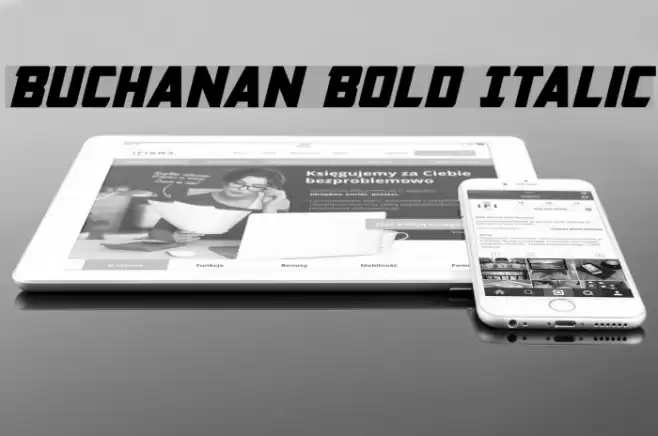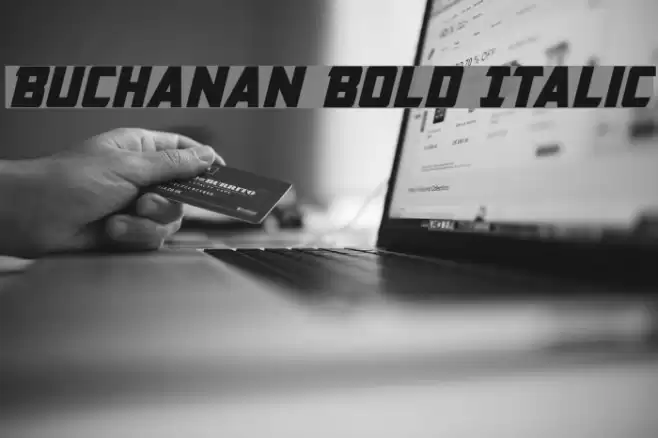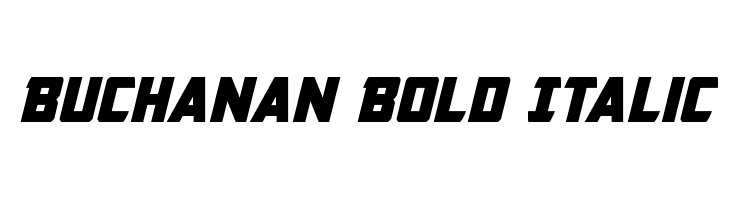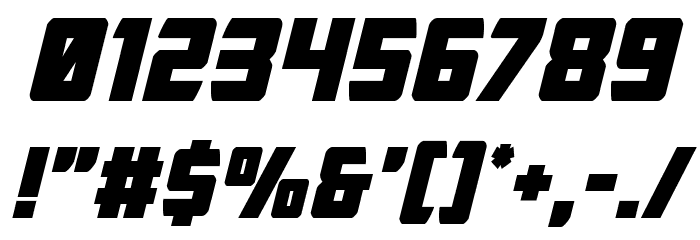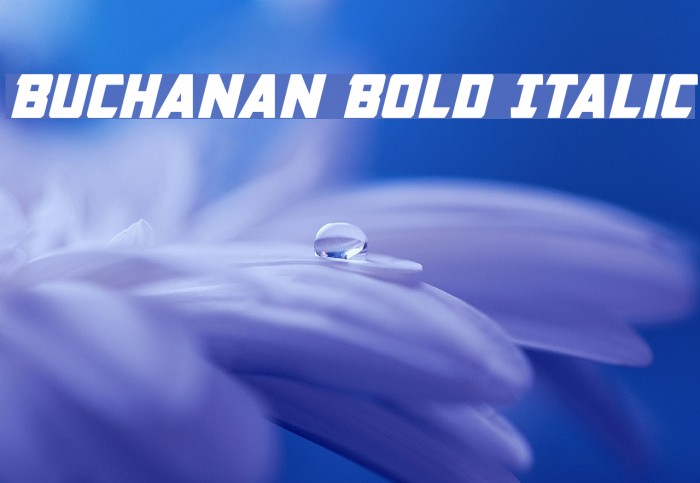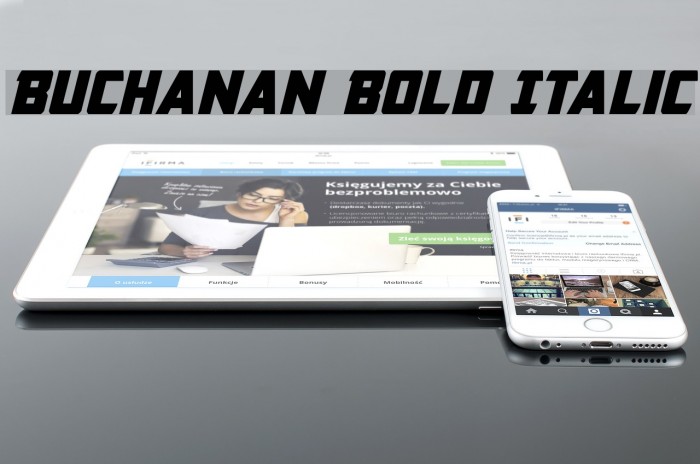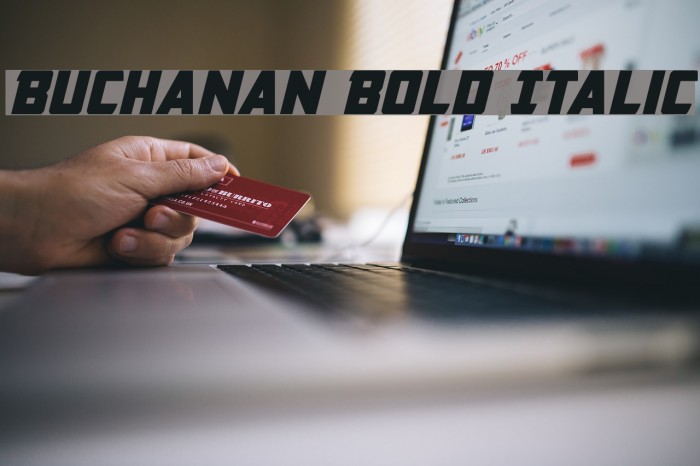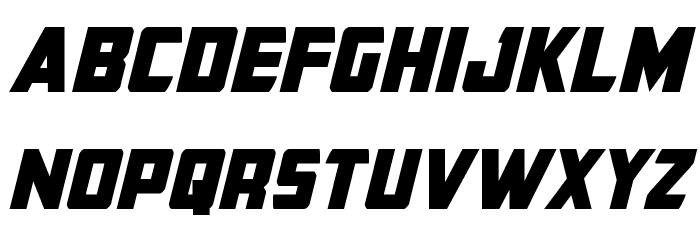
Buchanan Bold Italic Font
Buchanan Bold Italic Description
This font features a bold and italicized style with a strong, impactful presence. The characters are designed with a slight slant, enhancing their dynamic appearance. The strokes are thick and consistent, providing a robust and confident look. The uppercase and lowercase letters maintain a uniform width, contributing to a cohesive and structured feel. The numerals and special characters are crafted to match the boldness of the alphabet, ensuring a harmonious overall design. The font's modern and assertive style makes it suitable for attention-grabbing headlines and branding projects.
A bold, italicized font with a strong, dynamic presence from Uncategorized fonts.
- Proposed Projects: Ideal for headlines, branding, posters, and advertising materials.